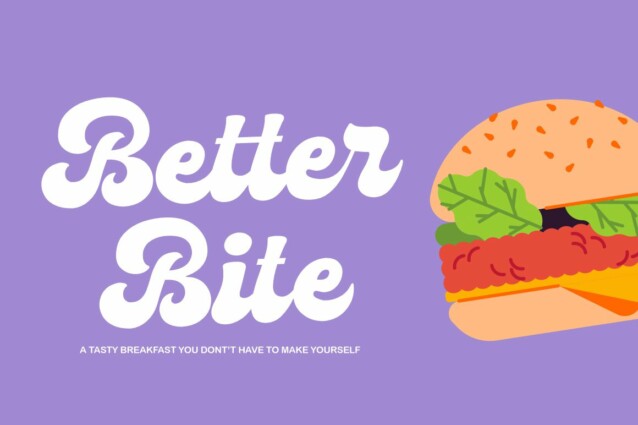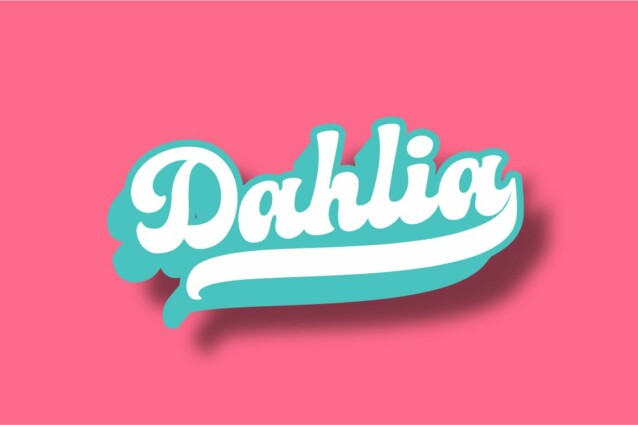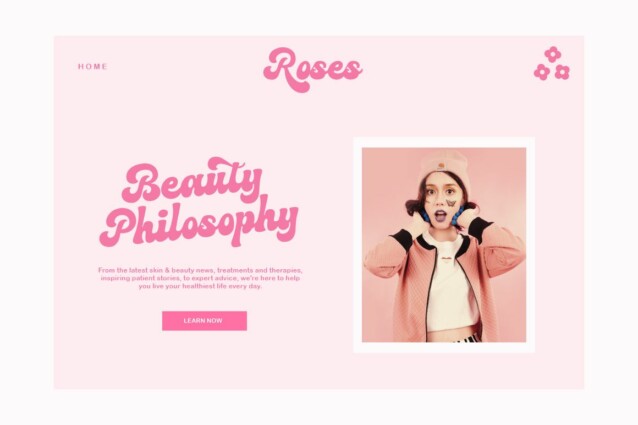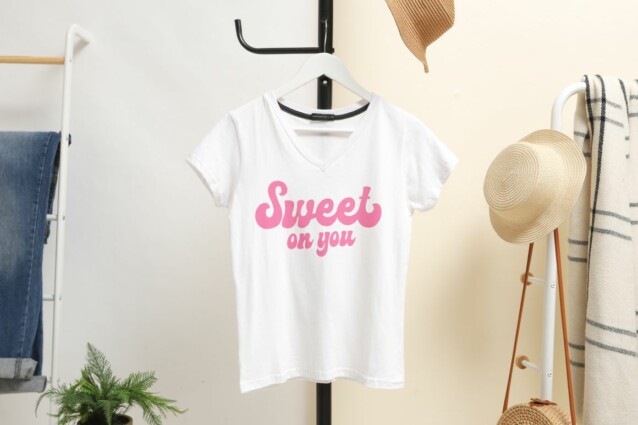
Yolien Font is a retro, cute, and modern inspired by the flowy freeform lettering of the ’60s and ’70s. This font has a unique shape where every corner is smoother and more rounded. Every curve is designed based on an authentic and natural style.
Yolien is perfectly suitable for a layout design for quotes or body copy, best used as a display for headings, logos, branding, magazines, product packaging, invitations: logotypes, and much more.